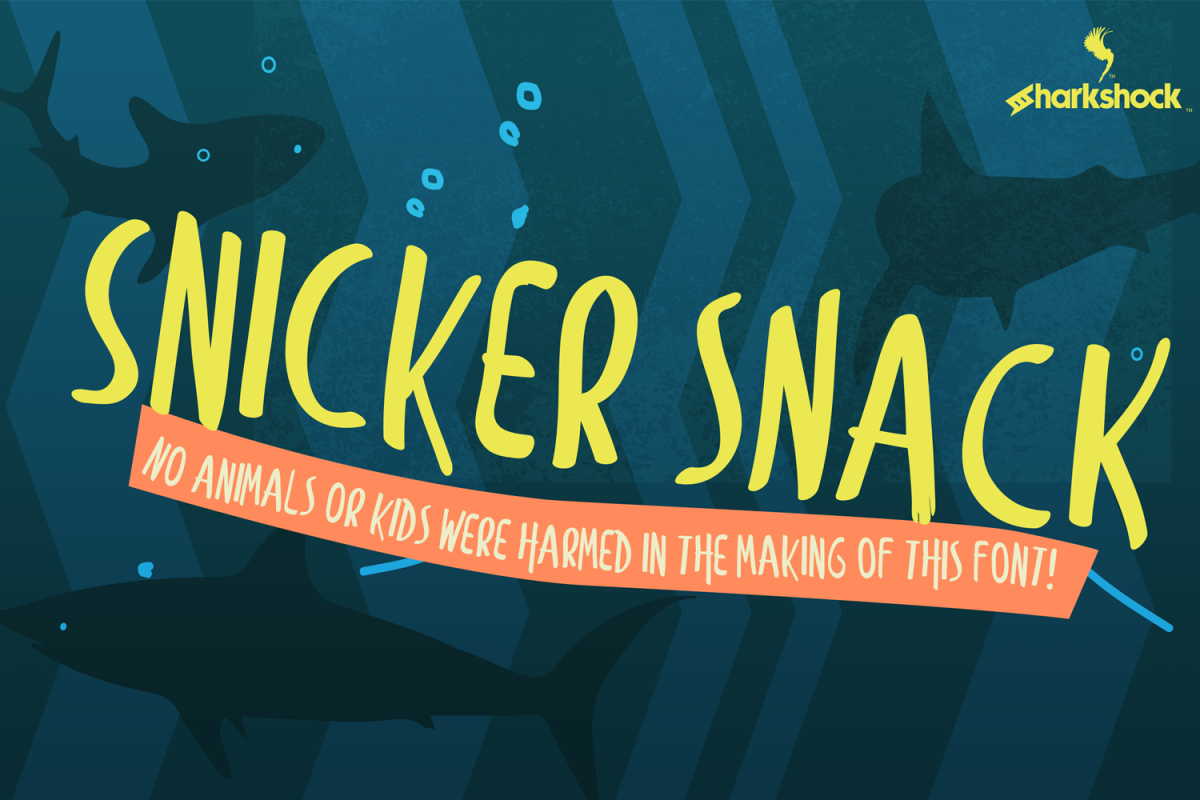
Looking for something a little less formal and a lot more
fun? Look no further! Snicker Snack is a childlike all-caps font designed for
everyday use. This style is characterized by playful strokes and a very loose
feel. Common uses include t-shirts, kids’ books, or retail signage.